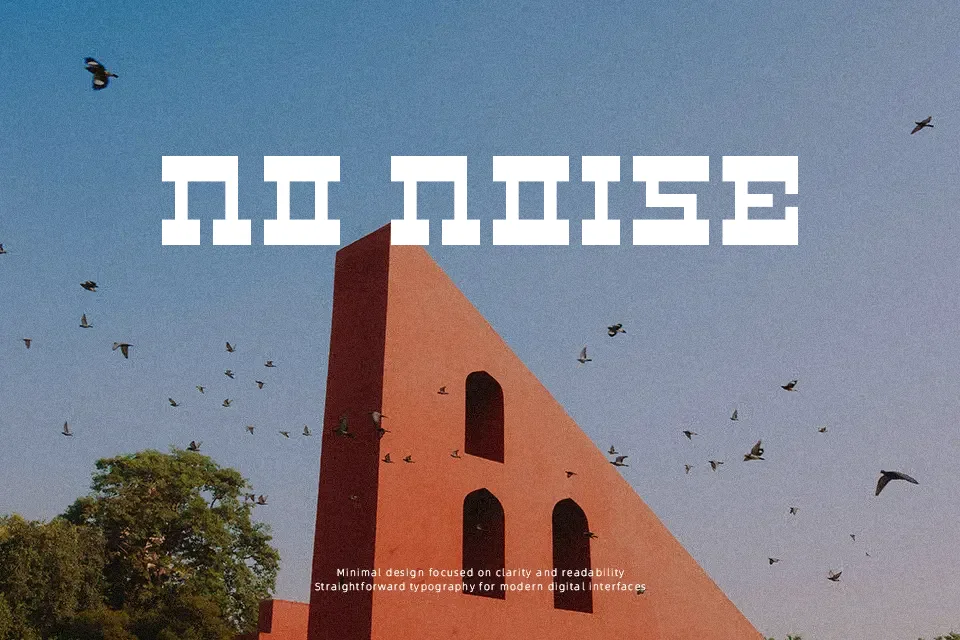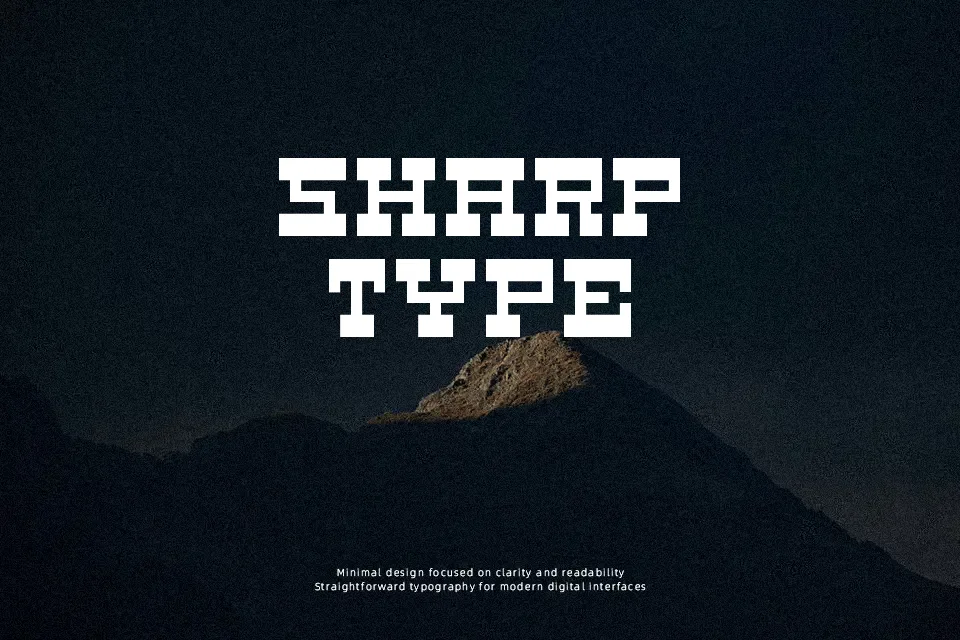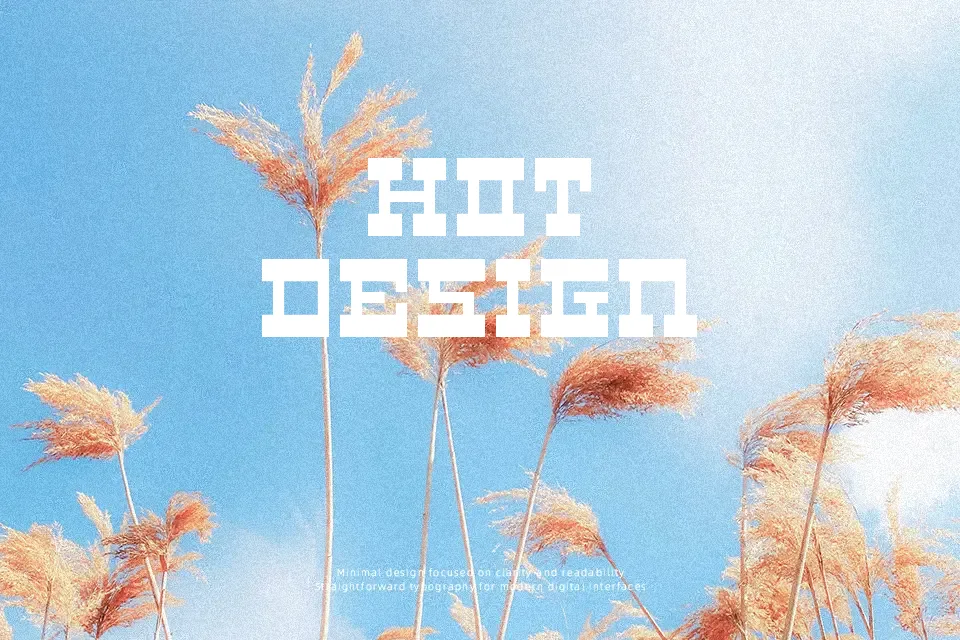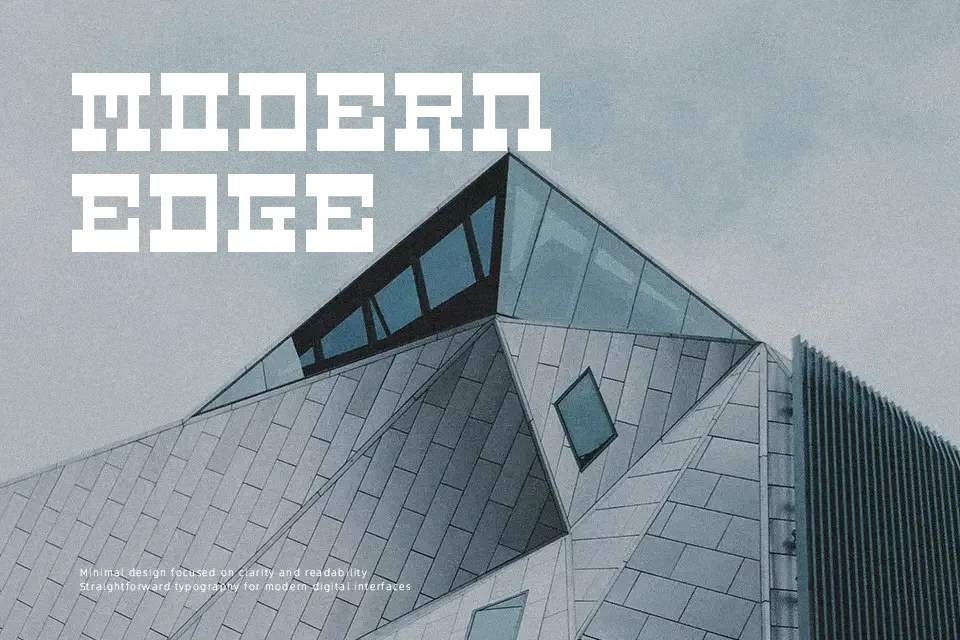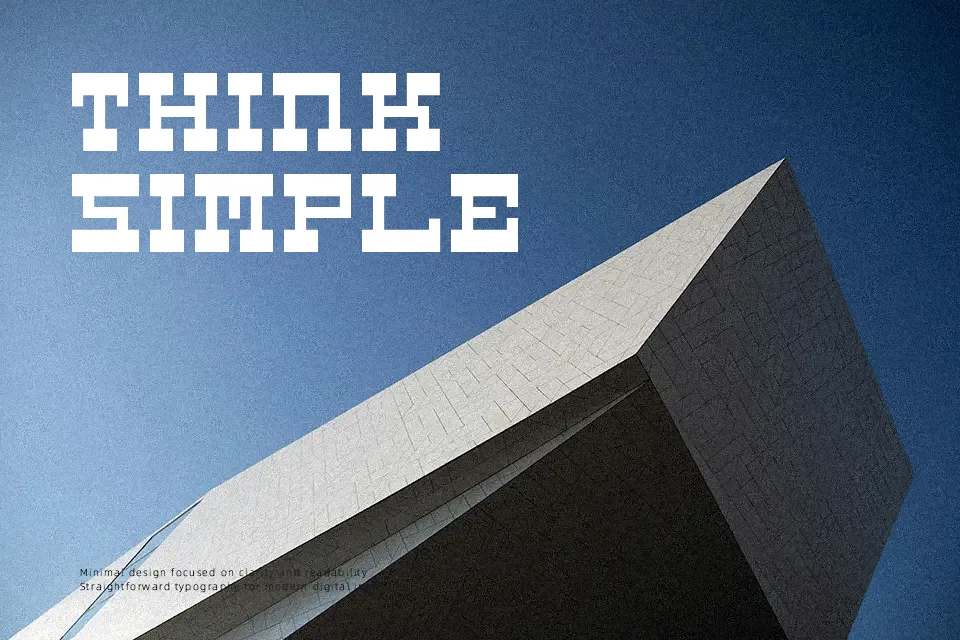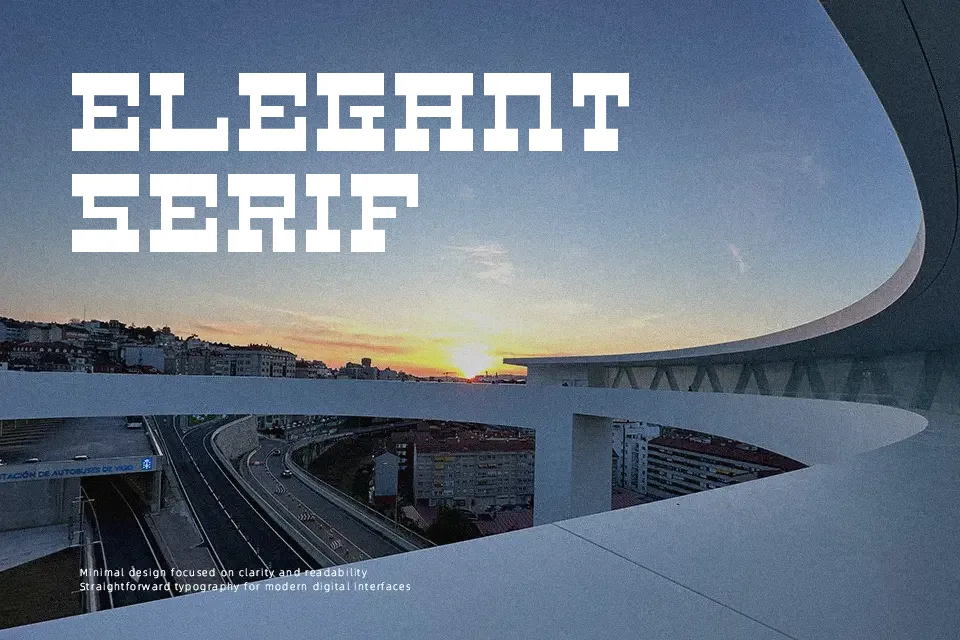
5Carnival Font
There’s an unabashed confidence to 5Carnival — its letterforms lean into thick, slightly ornamental strokes drawn from Western fairground sign-painting traditions. The overall structure is uppercase-dominant with tight visual rhythm that reads well at large sizes but breaks down quickly in dense text. Characters carry enough exaggerated weight to hold their own on a busy poster background. It’s well-suited for event titles, game booth signage headers, or theme party collateral where the atmosphere depends on visual noise. That said, it struggles badly in small sizes, and pairing it alongside modern sans-serif body text can feel tonally disconnected. Works when the brief calls for deliberate nostalgia; falls short when clarity or versatility is the priority.
Best For:- Carnival or fair event poster headlines
– Retro-themed packaging titles
– Halloween or festival flyer headers
– Amusement park promotional graphics
Not Ideal For:- Body text or any extended reading context
– Corporate or professional branding
– Minimalist or modern UI design
– Multilingual layouts requiring accent-heavy character sets
Perfect for advertising, halloween, and headline, with a bold and decorative style.